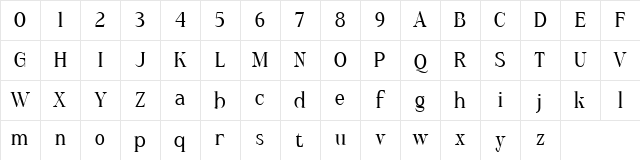
Begita Regular Free Font
Begita Regular
Foundry: Kerismaker
Designer: Keristyper Team
Design Context for Begita
Begita is a composed and adaptable typeface that performs quietly and consistently across a wide range of design contexts.